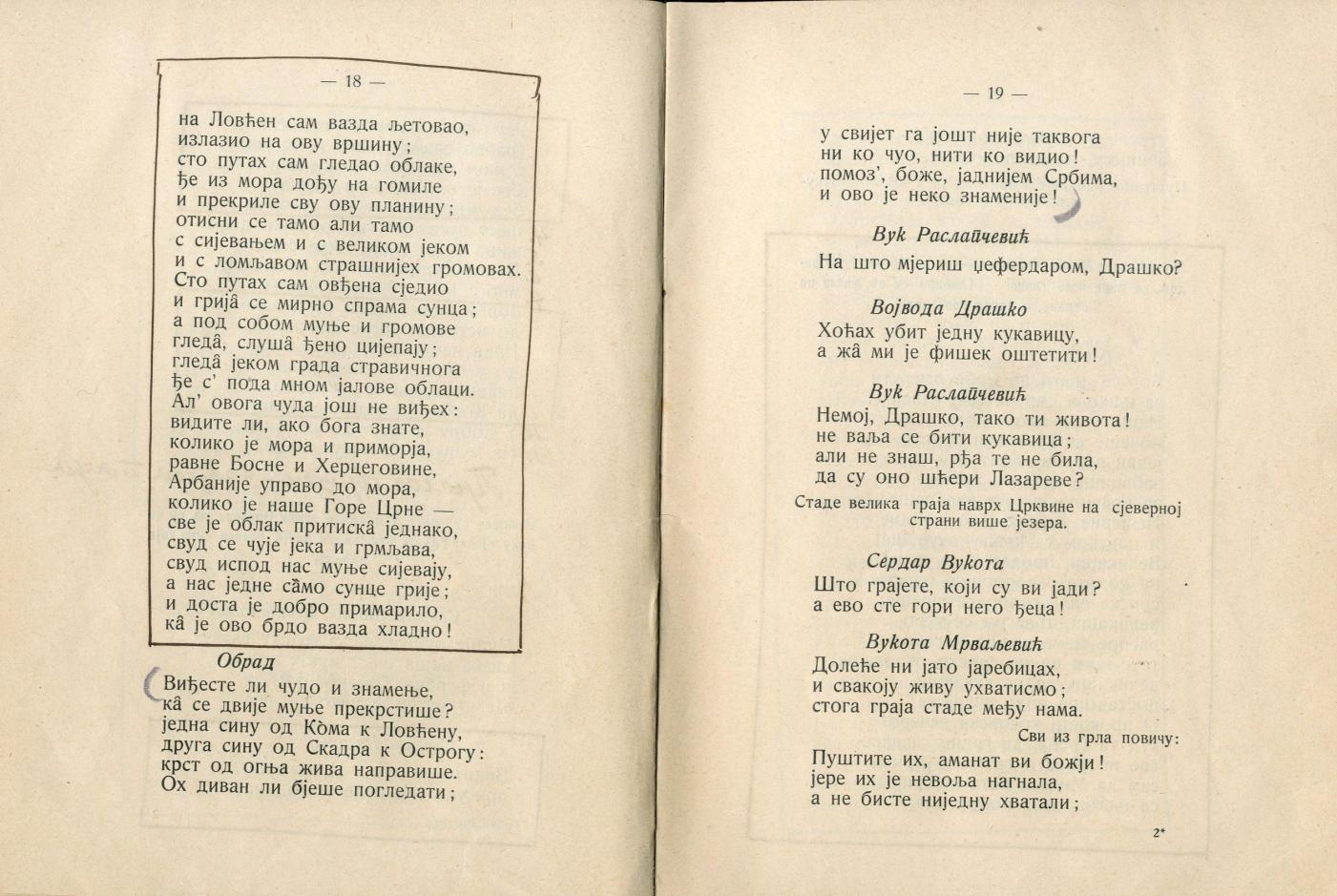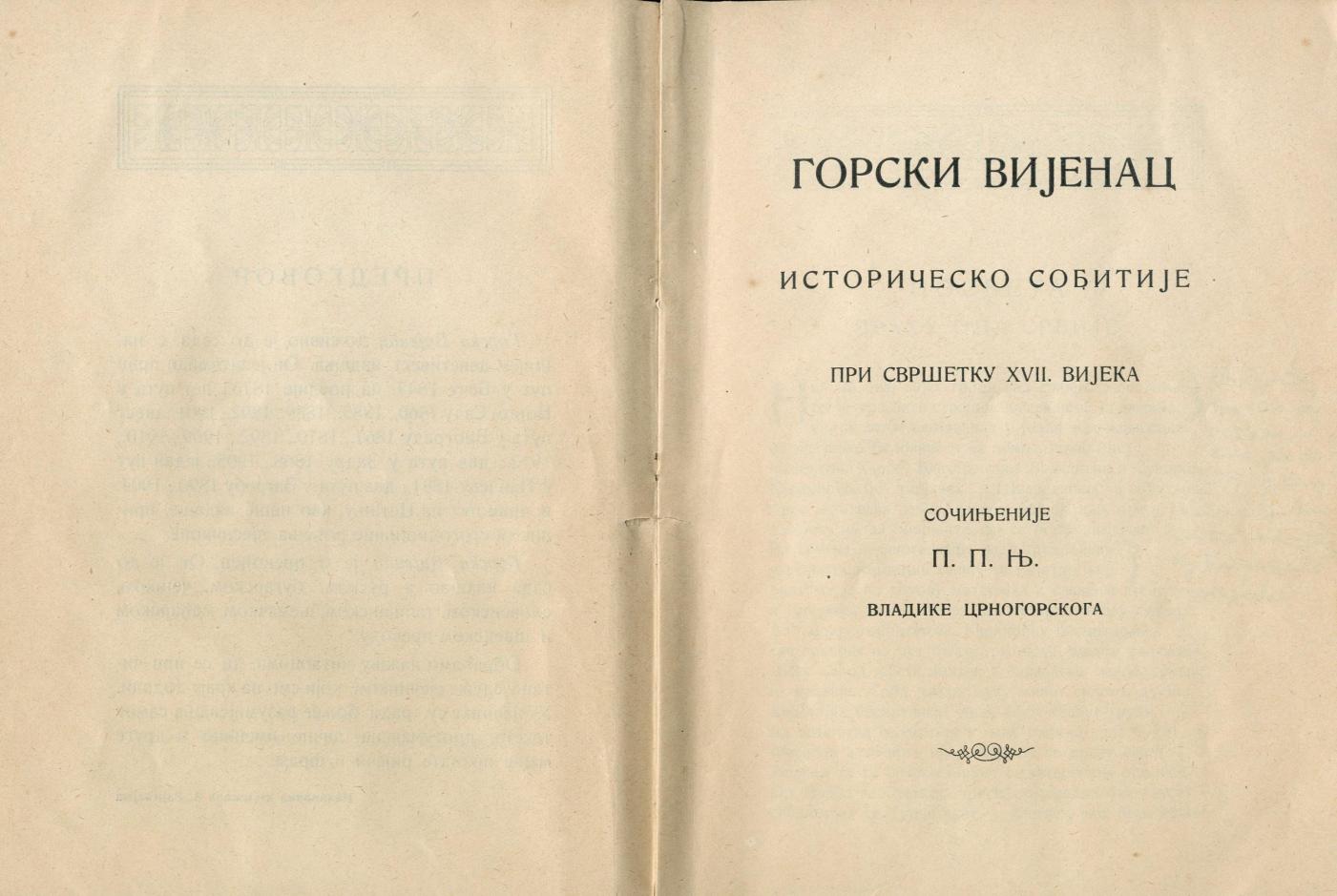
Looking for the font of the old Serbian book from 1913: Горски вијенац
Please, help me in indentifying this font. The book "Gorski vijenac" (The Mountain Wreath) was printed in 1913. in Montenegro. The language is Serbian, cyrillic script. I have found it on the website of the Montenegrin Digital Library http://dlib.me/skenovi .